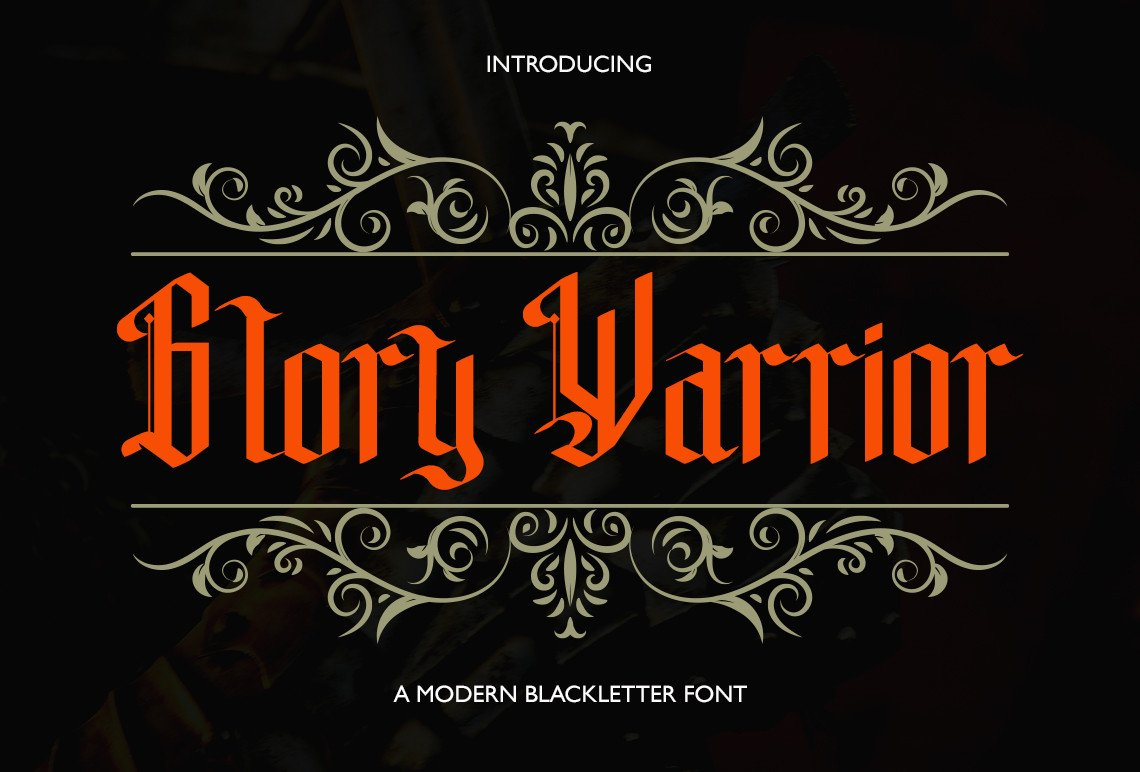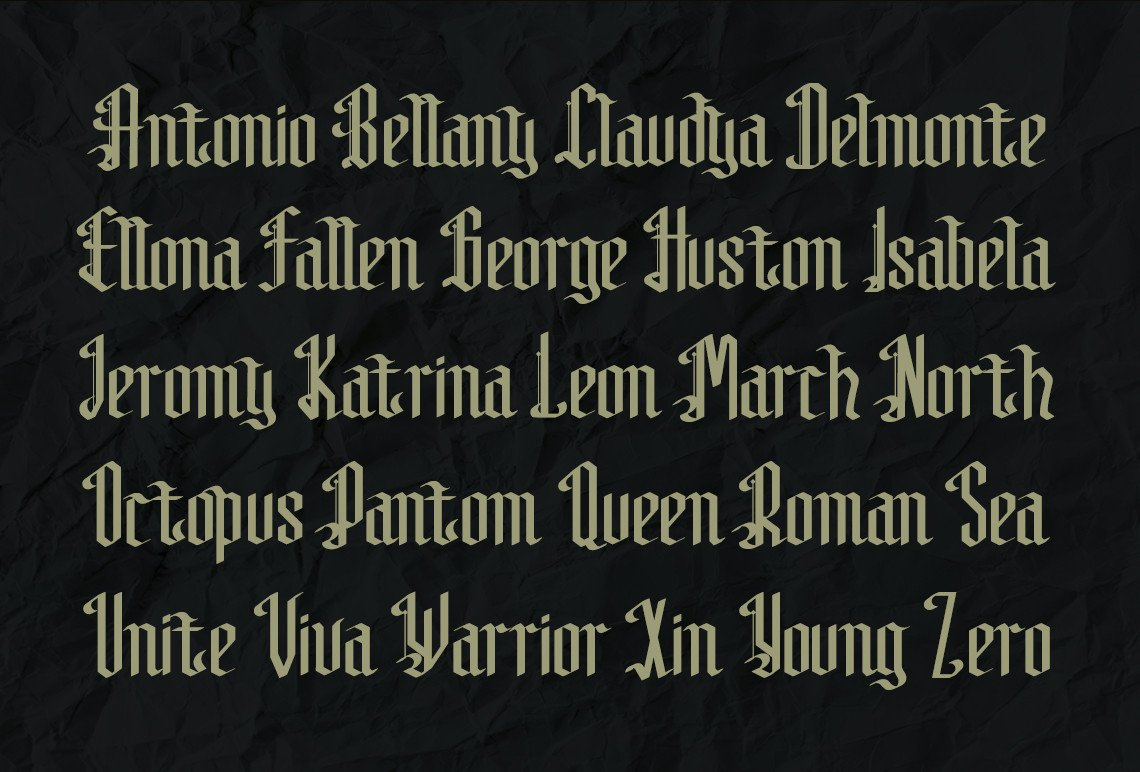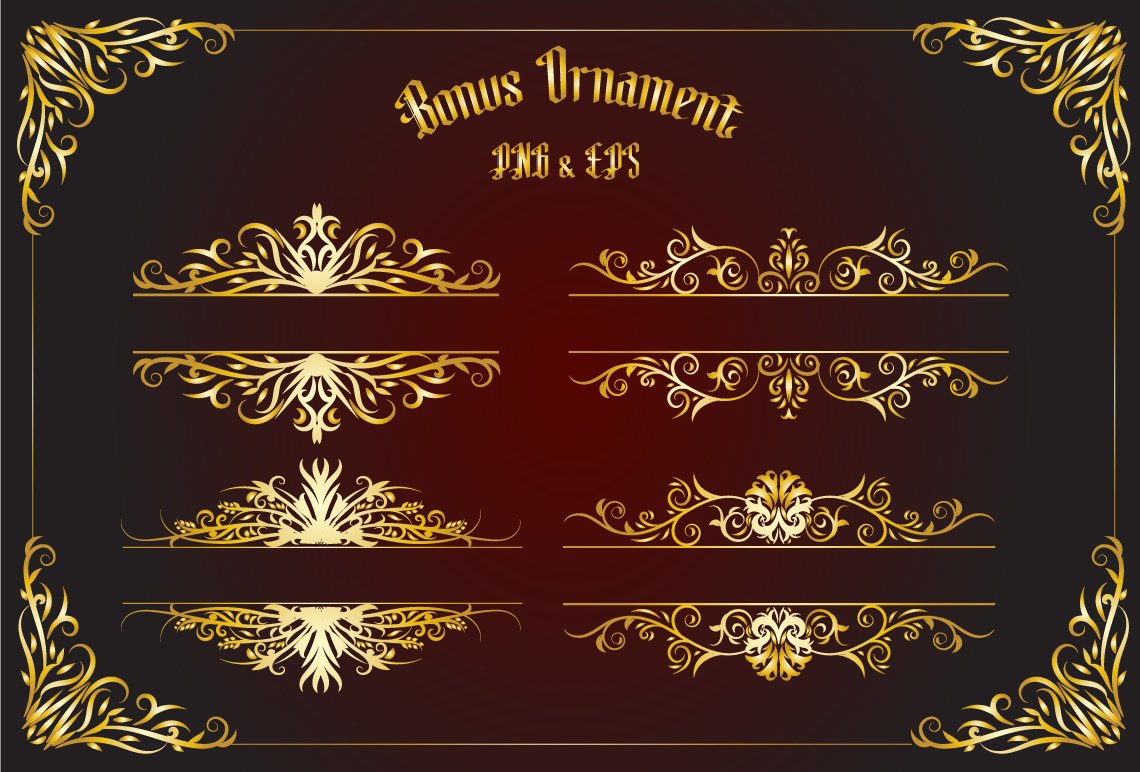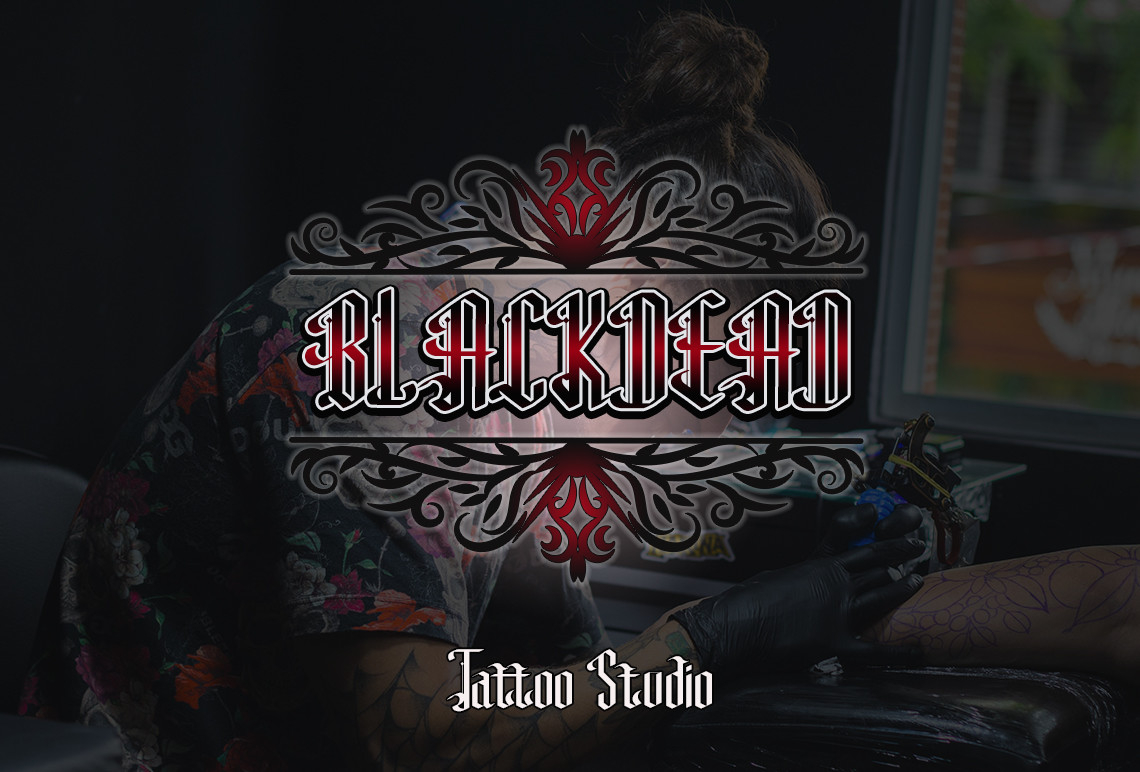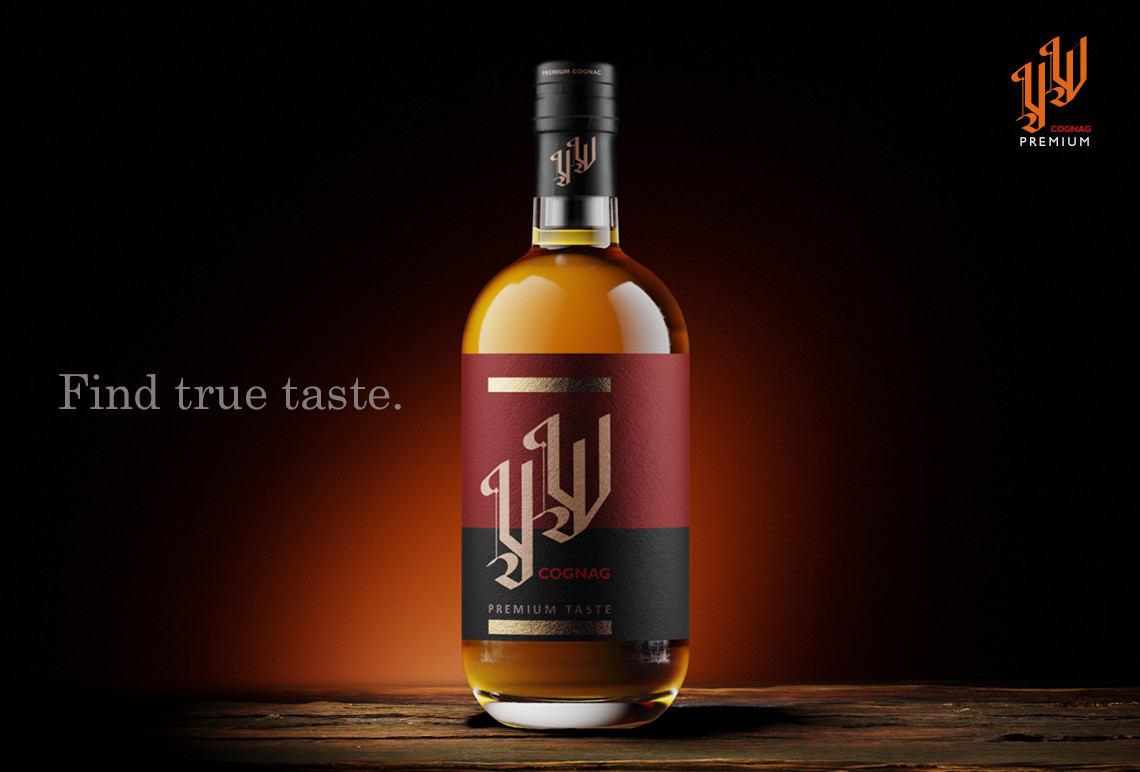
Glory Warrior Font
About Glory Warrior Font
Glory Warrior is a highly detailed and gothic styled blackletter font. This font is the ideal font to add a strong and assertive feel to your next design idea!